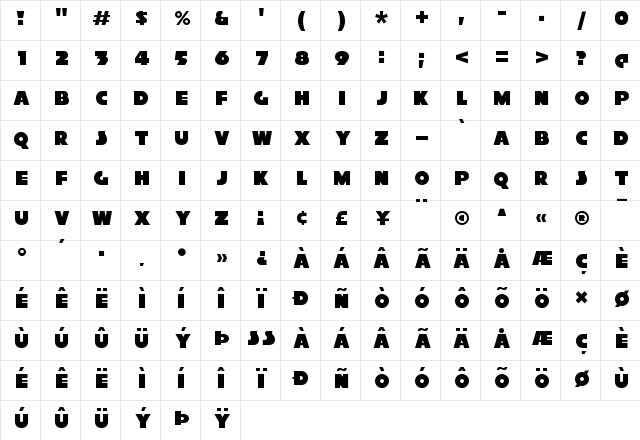
Xylitol Front
Design Context for Xylitol Typeface
Xylitol offers clean, dependable letterforms without strong stylistic allegiance, making it a practical choice for designers who need flexibility.